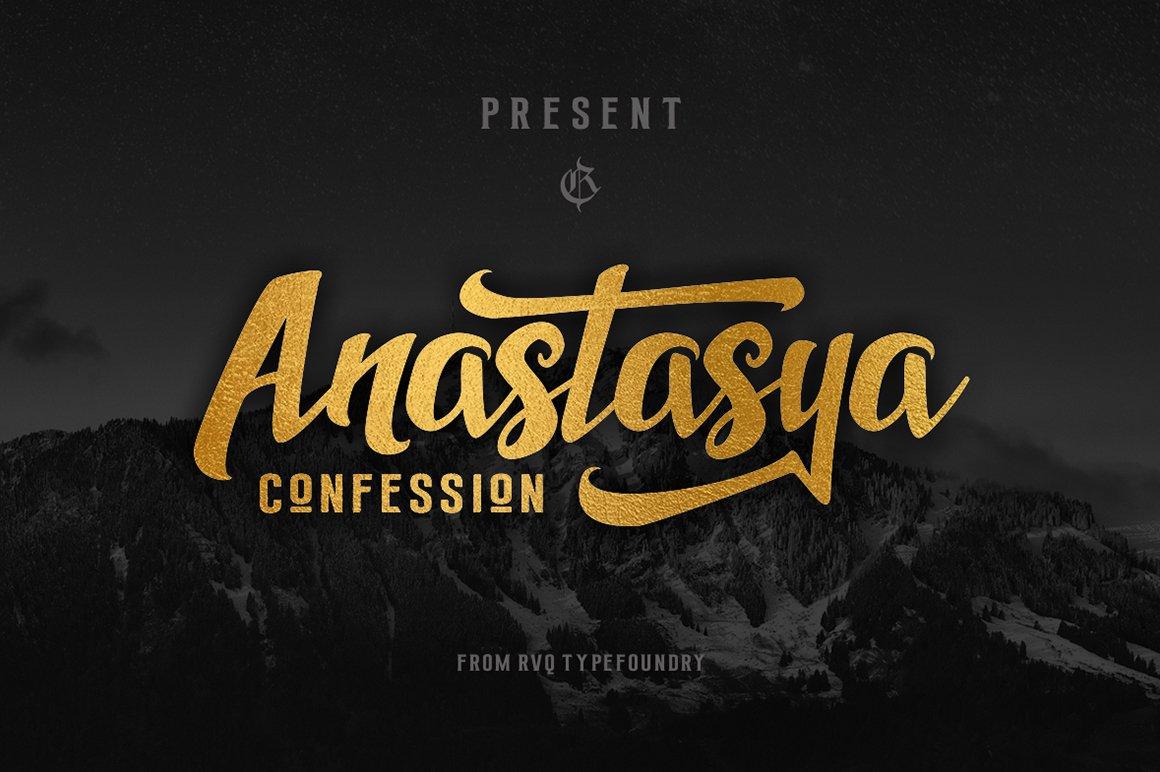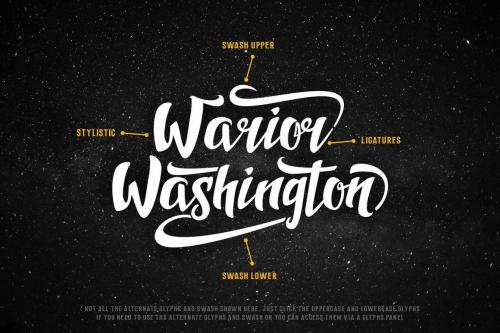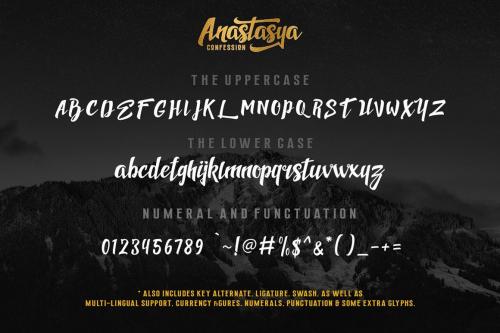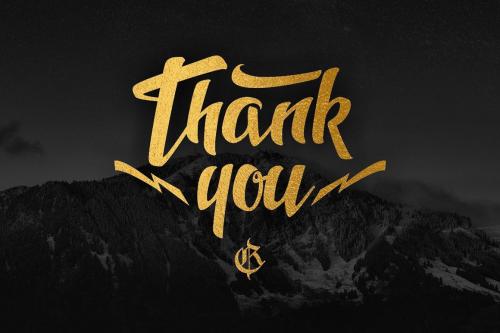
Anastasya Confession is new font from Rvq Typefoundry, new typeface with classy, elegant and vintage feel character set. To create the beautiful combination, just mix the uppercase and lowercase then mix with the alternative glyphs and playing with swash.
The Anastasya Confession includes a full set of capital and lowercase letters, as well as multi-lingual support, currency figures, numerals, punctuation & some extra glyphs.